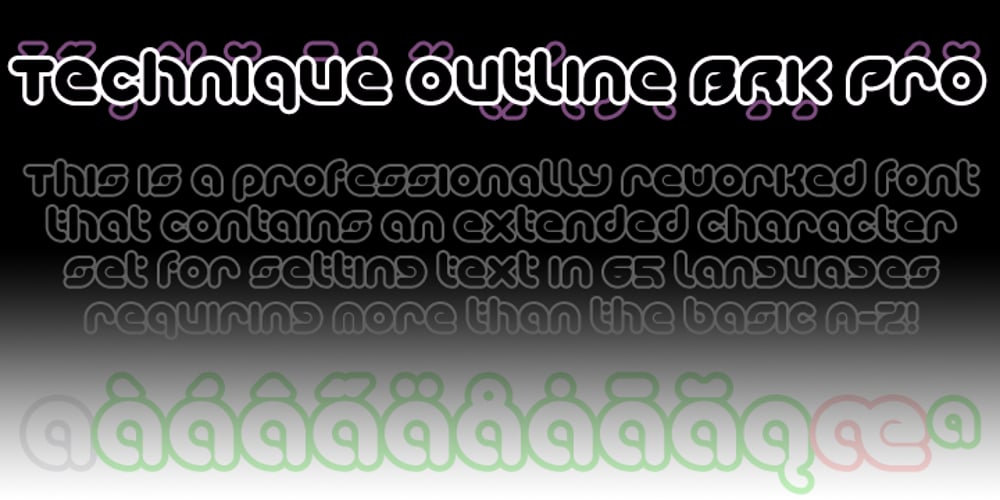
Technique BRK Pro
Technique BRK Pro font
Technique BRK Pro Font Family was designed by Roger S. Nelsson, Brian Kent and published by CheapProFonts. Technique BRK Pro contains 2 styles and family package options. I noticed this font for its versatile techno look – it makes wonderful logotype word images. Every letter combination is perfectly kerned so that the letters fit together nicely… Also includes some alternate letterforms, but only in their basic forms (not made in combinations with diacritics). These alternates are available via your programs’ glyph palette or using the OpenType functions “Stylistic Alternates”/”ss02” and “Swash”/”ss01”. Technique BRK Pro is the perfect companion for Technique Outline BRK Pro (it exactly fills the “holes”) but also a nice techno font in its own right. ALL fonts from CheapProFonts have very extensive language support: They contain some unusual diacritic letters (some of which are contained in the Latin Extended-B Unicode block) supporting: Cornish, Filipino (Tagalog), Guarani, Luxembourgian, Malagasy, Romanian, Ulithian and Welsh. They also contain all glyphs in the Latin Extended-A Unicode block (which among others cover the Central European and Baltic areas) supporting: Afrikaans, Belarusian (Lacinka), Bosnian, Catalan, Chichewa, Croatian, Czech, Dutch, Esperanto, Greenlandic, Hungarian, Kashubian, Kurdish (Kurmanji), Latvian, Lithuanian, Maltese, Maori, Polish, Saami (Inari), Saami (North), Serbian (latin), Slovak(ian), Slovene, Sorbian (Lower), Sorbian (Upper), Turkish and Turkmen. And they of course contain all the usual “western” glyphs supporting: Albanian, Basque, Breton, Chamorro, Danish, Estonian, Faroese, Finnish, French, Frisian, Galican, German, Icelandic, Indonesian, Irish (Gaelic), Italian, Northern Sotho, Norwegian, Occitan, Portuguese, Rhaeto-Romance, Sami (Lule), Sami (South), Scots (Gaelic), Spanish, Swedish, Tswana, Walloon and Yapese.